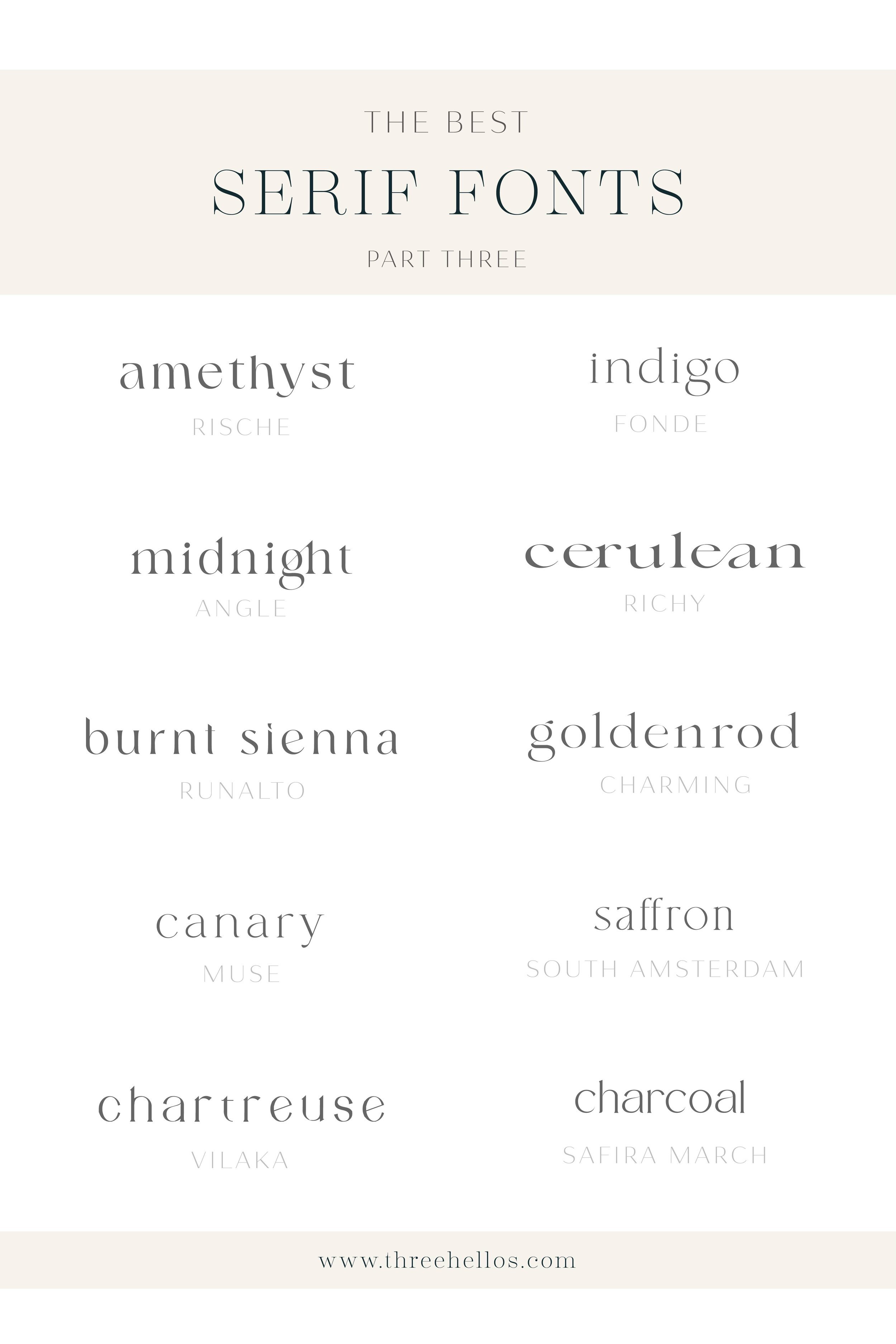
If you’re drawn to fonts that feel elegant yet grounded, this collection is for you. The Serif Edition — Part Three — highlights typefaces that balance artistry with restraint. Each one tells its own subtle story through proportion, contrast, and detail — offering that perfect blend of sophistication and personality that defines a timeless brand identity.
Serif fonts have a way of anchoring a brand. They feel confident, composed, and trustworthy — whether used in a wordmark, headline, or long-form layout. The right serif can soften a modern aesthetic or add structure to something more organic. This collection brings together ten typefaces that do both beautifully.
The Collection
Each font below carries its own creative tone — from polished and poetic to strong and stately.
Rische (Amethyst) – Elegant & expressive
A refined serif with subtle contrast that feels creative yet poised — perfect for boutique studios and editorial brands.
Fonde (Indigo) – Modern & airy
Clean and balanced with generous spacing, Fonde feels effortlessly modern and minimal.
Angle (Midnight) – Sleek & confident
A bold serif with sculpted details that communicates confidence and clarity.
Richy (Cerulean) – Artistic & refined
Beautifully stylized and slightly whimsical, Richy adds personality without losing sophistication.
Runalto (Burnt Sienna) – Timeless & warm
Classic with a hint of nostalgia, Runalto grounds a palette or brand in familiarity and trust.
Charming (Goldenrod) – Graceful & feminine
Delicate serifs and high contrast make Charming a natural choice for feminine or lifestyle brands.
HV Muse (Canary) – Minimal & poised
A soft-spoken serif with balanced form — pairs effortlessly with clean sans serifs.
South Amsterdam (Saffron) – Classic & elevated
Refined lines and elegant proportions give this font timeless polish.
Vilaka (Chartreuse) – Playful & polished
Rounded, creative, and expressive — Vilaka adds approachability to modern design systems.
Safira March (Charcoal) – Strong & sophisticated
Bold and structured with beautiful weight contrast — the definition of quiet strength.
pro tip
I always recommend a test drive of the font before purchasing if available. Type out words or the alphabet so that you can see all letterforms. I won’t lie, there have been times that I have liked a font until I saw how one letter was formed and it was ruined for me. The tiny details can really make a big impact when you are talking about font selection.
Here are a few graphics that utilize some of the fonts from my list so you can get a better visual and feeling for them. Pay attention to how they feel. Are the cold and stiff? Are they modern or vintage? Are they quirky or detailed? I also love when fonts utilize different weights and stylistic alternates. These make the typeface more robust and provide more longevity.
When to Use These Fonts
This collection is ideal for designers and creatives who want to blend classic elegance with modern sensibility.
Branding: These serifs are perfect for wordmarks, headlines, or packaging that needs a sense of confidence and refinement.
Web Design: Pair a modern serif with a clean sans serif for strong typographic hierarchy and editorial style.
Print & Collateral: Use these fonts to add depth to business cards, signage, and long-form layouts — anywhere you want visual texture with a timeless feel.
The Feel
Keywords: Sophistication, Structure, Personality, Balance, Confidence
These fonts feel thoughtful — the kind of typography that doesn’t chase trends, but defines them. They’re versatile enough for both contemporary minimalism and vintage influence, giving each design that quiet, enduring confidence we love.
Inspiration
Imagine a mix of linen and leather, creamy paper and crisp ink — tactile, human, and enduring. The Serif Edition — Part Three captures that feeling: a modern love letter to timeless design.